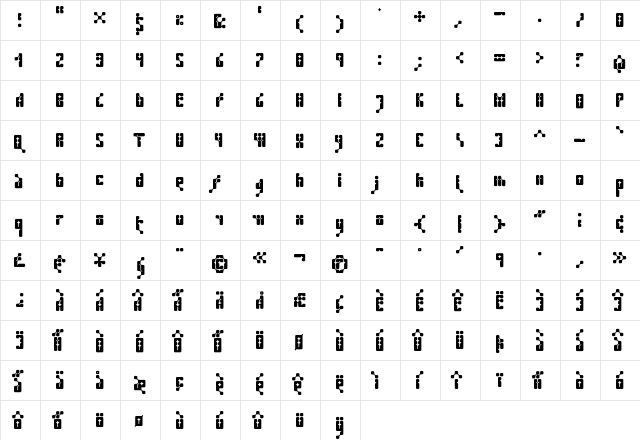
Kernfusion Glam
Design Context for Kernfusion Typeface
Kernfusion is a composed and adaptable typeface that performs quietly and consistently across a wide range of design contexts.